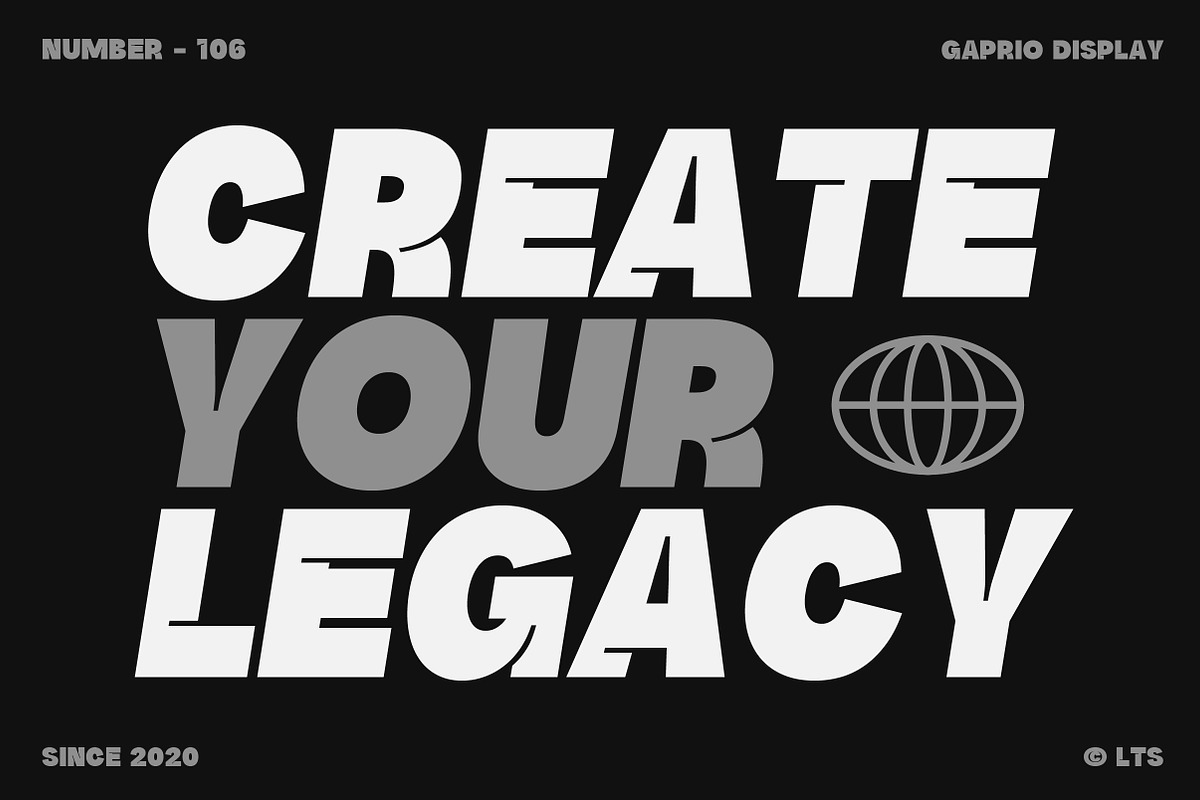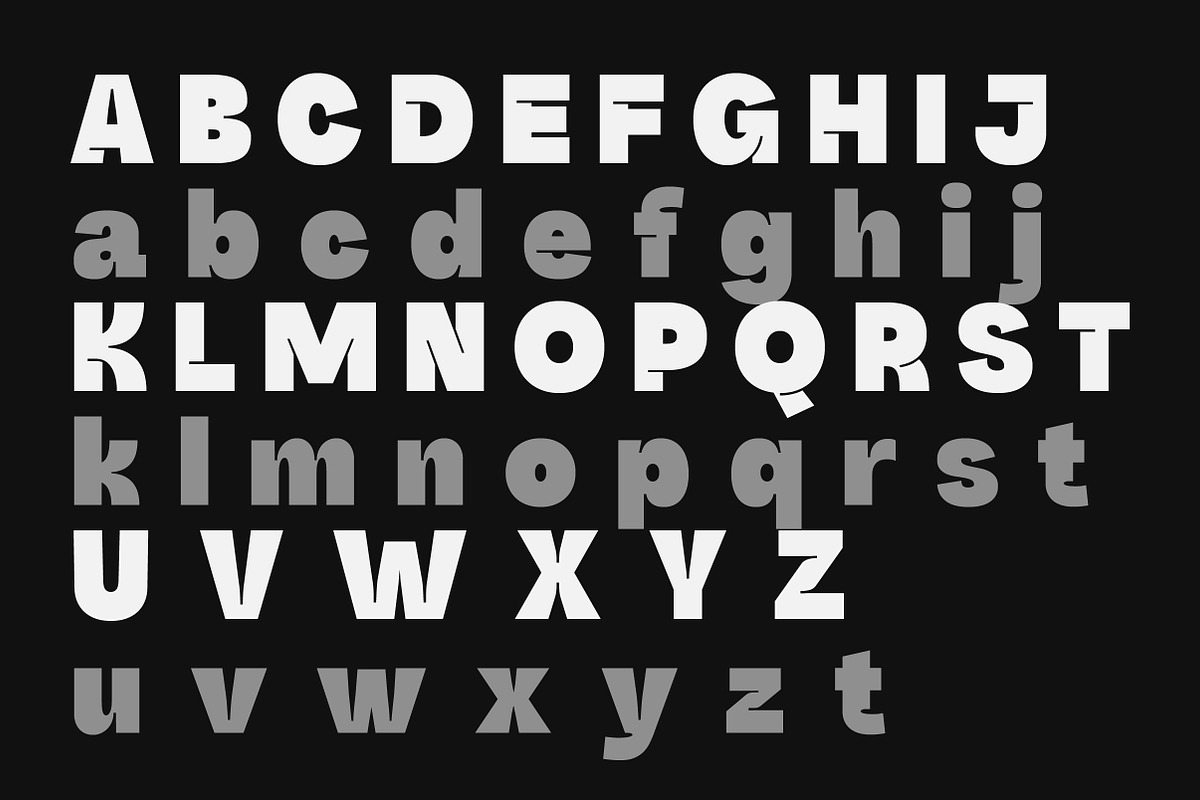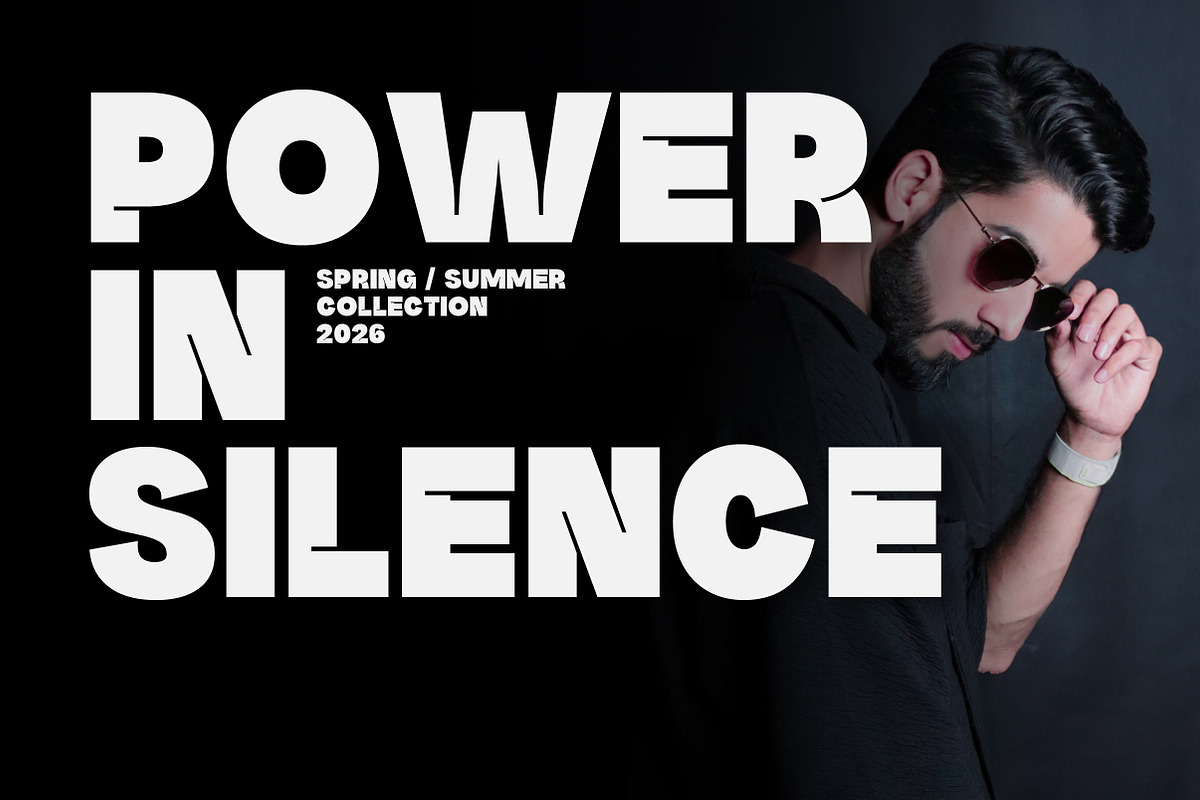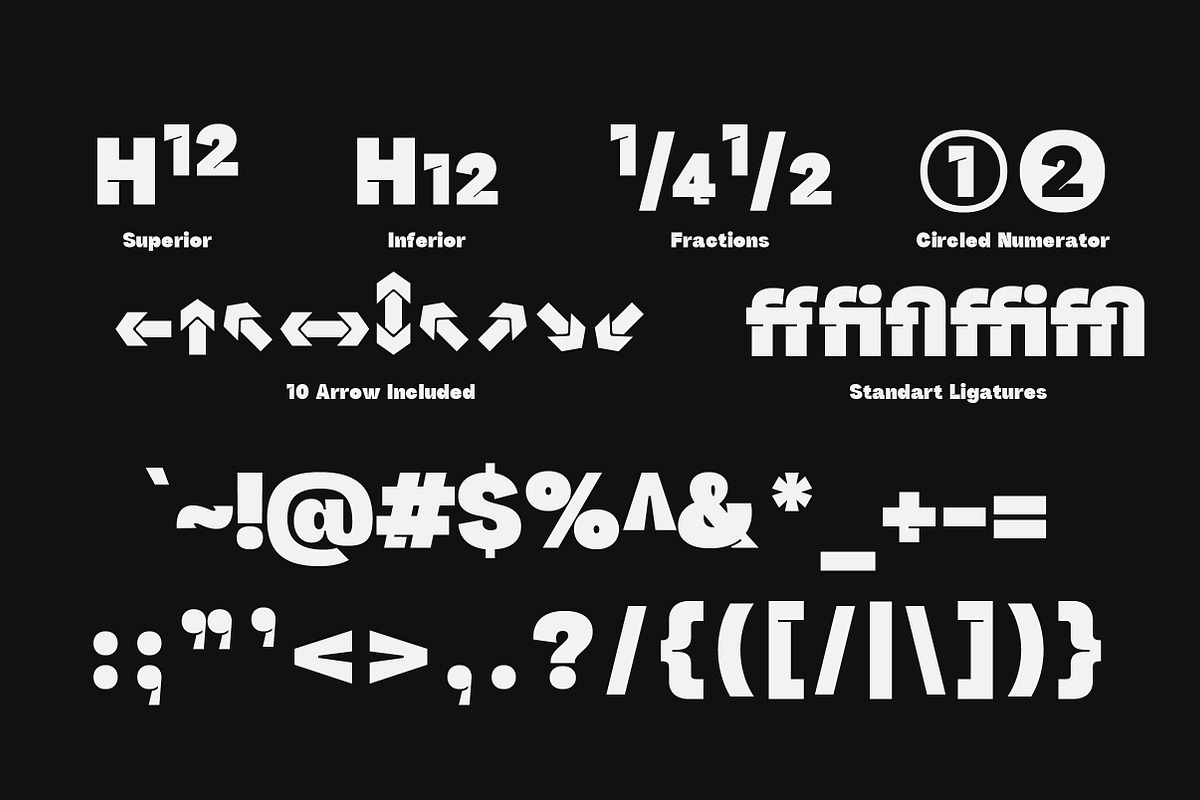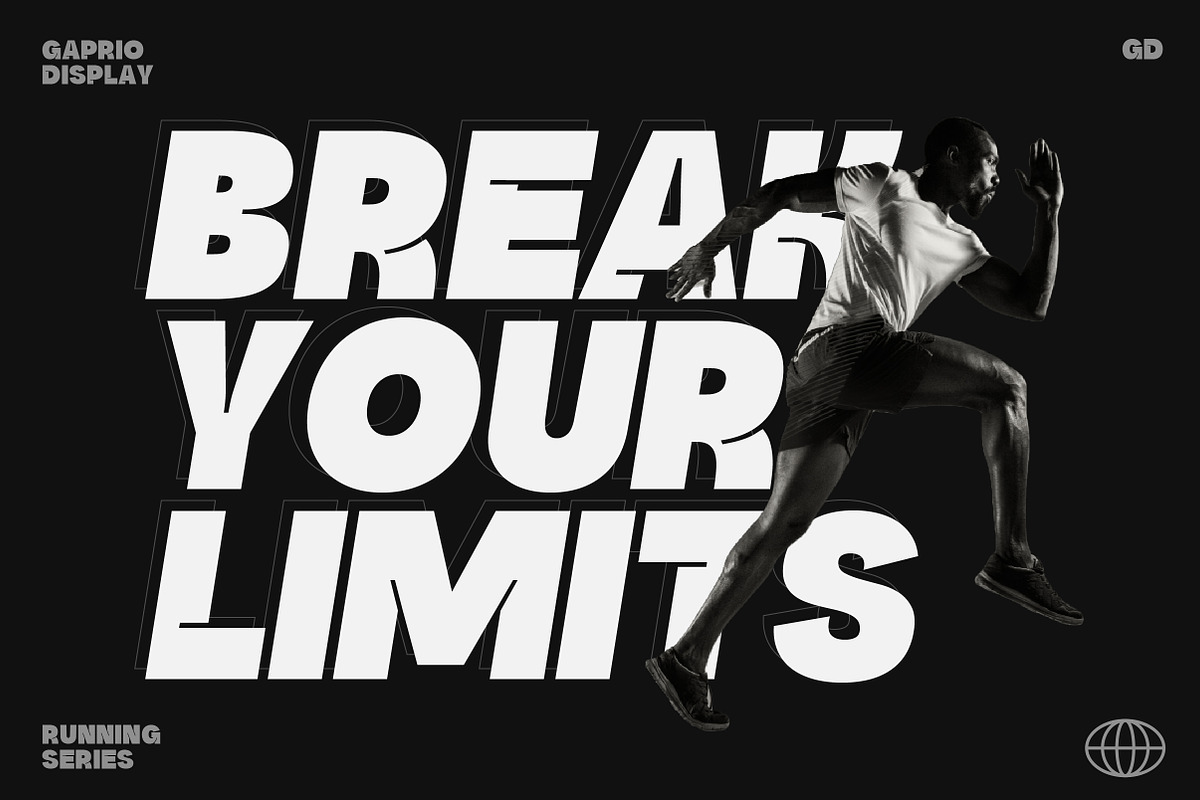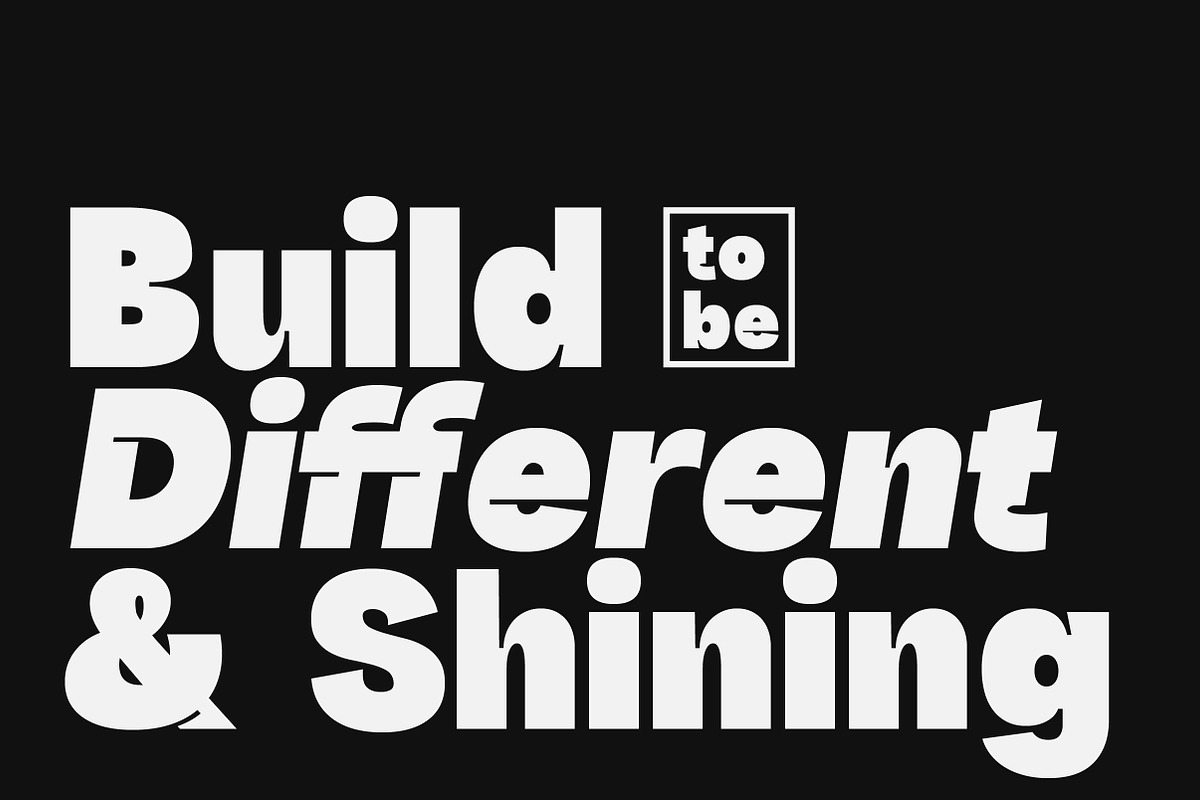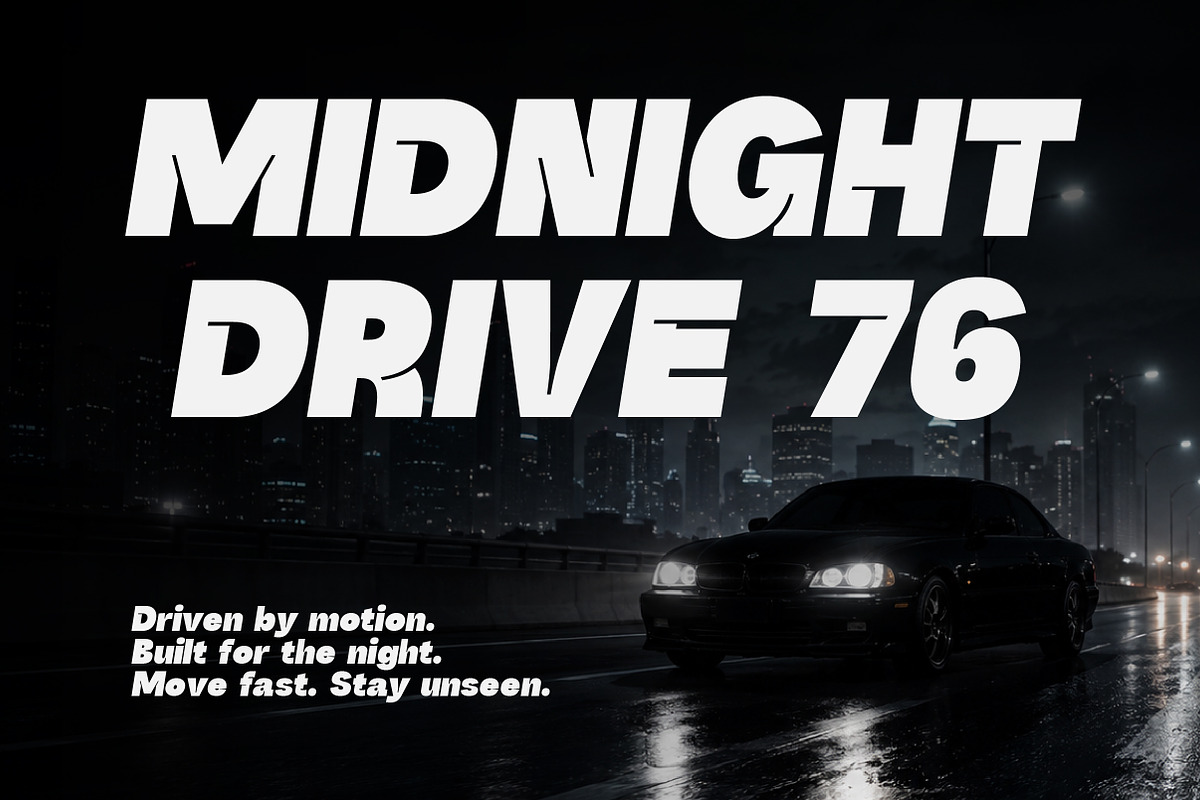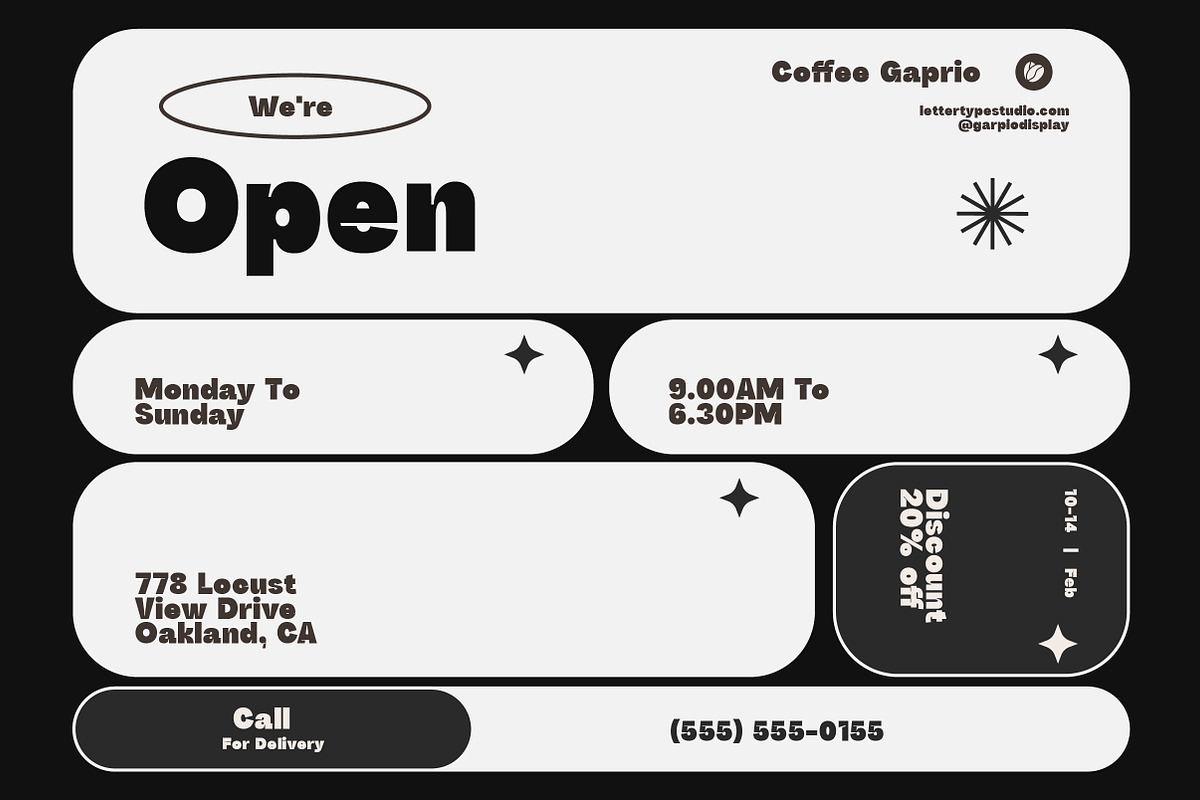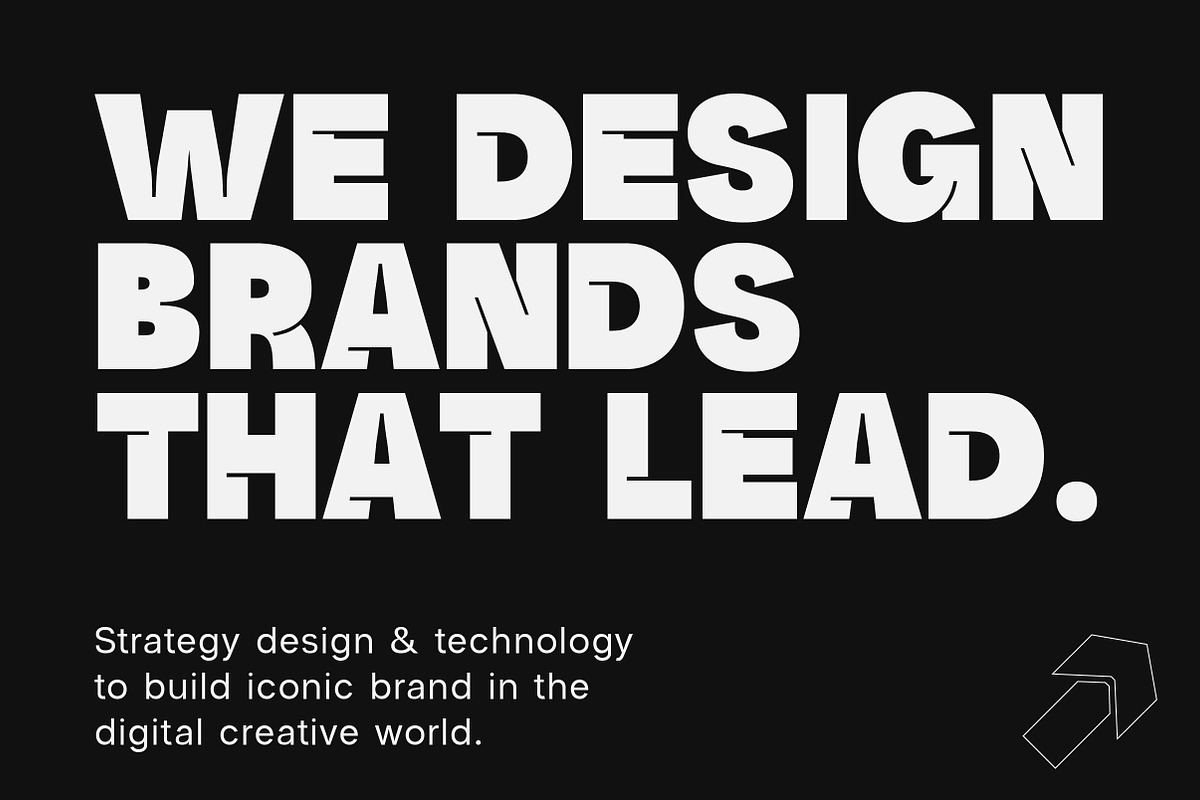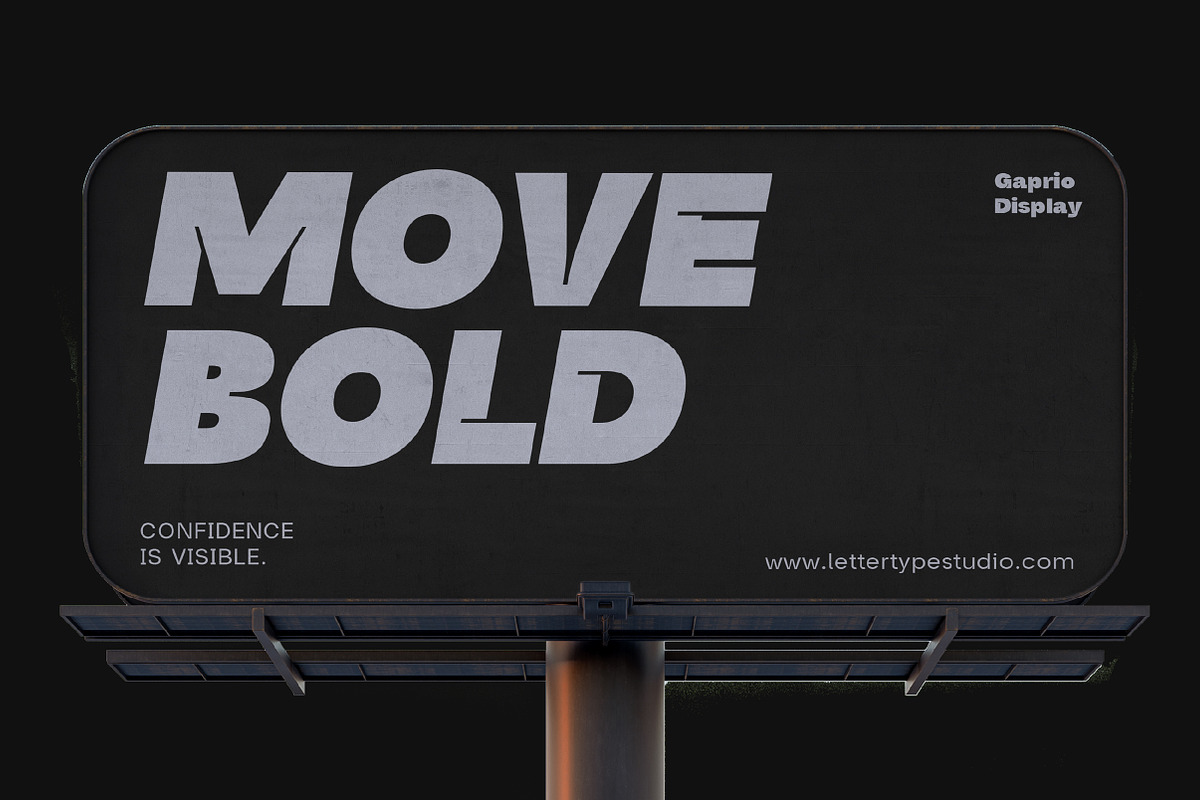
Gaprio Display a Bold Branding Sans
Gaprio Display is a bold geometric display sans crafted for modern branding, editorial layouts, posters, and fashion-forward typography. Designed with strong proportions, clean curves, and confident visual rhythm, this typeface delivers a striking balance between contemporary minimalism and expressive display aesthetics. Its bold presence makes every headline feel impactful while still maintaining clarity and readability.
Built for designers who need attention-grabbing typography without losing versatility, Gaprio Display works beautifully across luxury branding, streetwear campaigns, sports visuals, music covers, digital advertisements, packaging, and social media graphics. The family combines modern geometric structure with energetic display personality, making it ideal for projects that demand confidence, style, and visual impact.
Gaprio Display Features:
- 2 Styles
- Upright & Italic
- 502 Glyphs Total
- 270+ Languages Support
- Editorial & Magazine Headlines
- Fashion & Luxury Branding
- Sports & Streetwear Campaigns
- Posters & Music Artwork
- Creative Agency Visual Identity